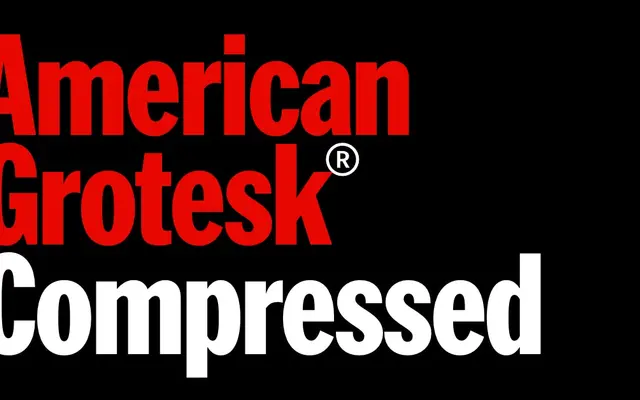
American Grotesk Compressed
Klim Type Foundry · Kris Sowersby · 2024
American Grotesk Compressed specimen from Klim Type Foundry
The most compressed width of American Grotesk, built for posters and mastheads where every millimetre of horizontal space counts.
A compressed grotesque by Kris Sowersby that takes the American Grotesk system to its narrowest setting. Fourteen styles run from Thin to Black with matching italics, and the family connects to the standard and Condensed widths so editorial systems can flex from body to billboard. The Woodtype stylistic set hints at the American poster heritage Klim describes for the wider family.
Klim classifies it as Lineal: Grotesque; the most compressed width in the American Grotesk system, rooted in Franklin Gothic and the wider American vernacular.